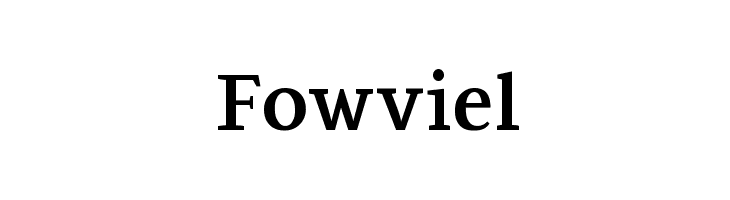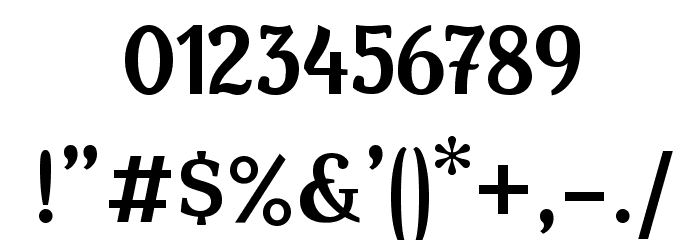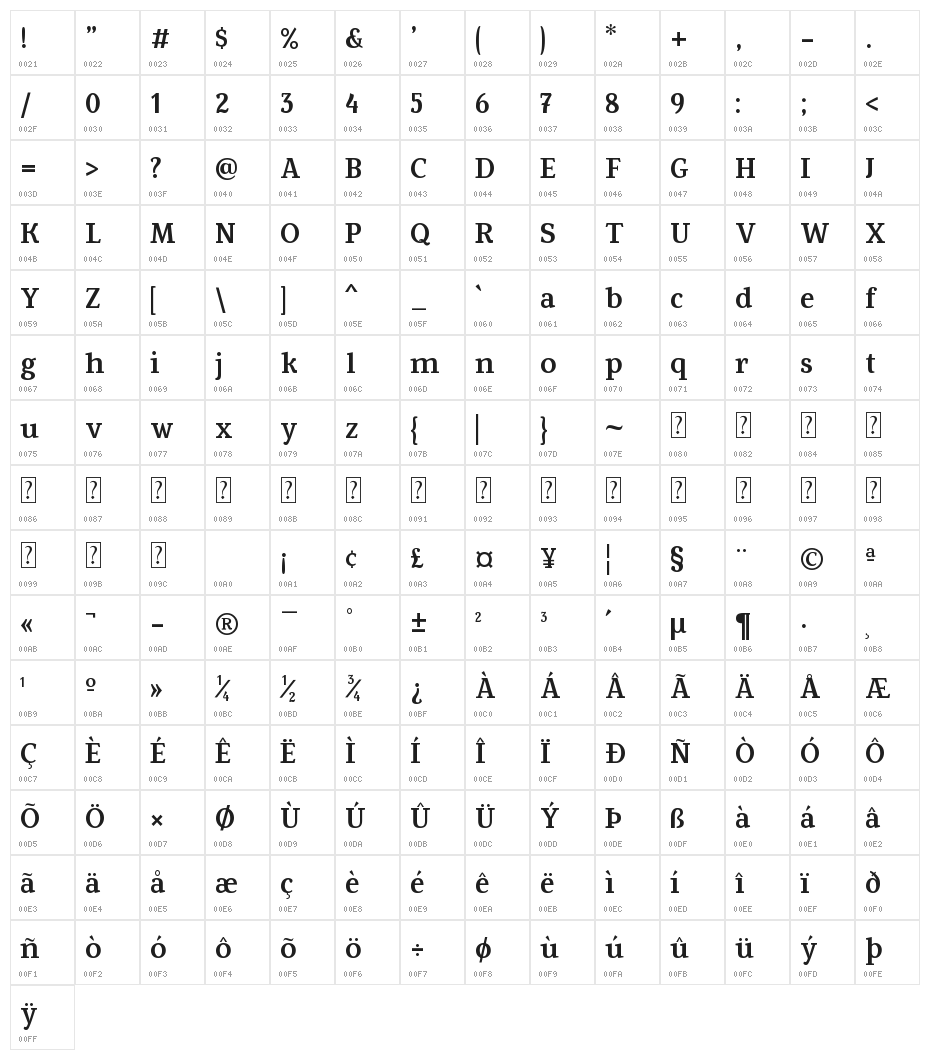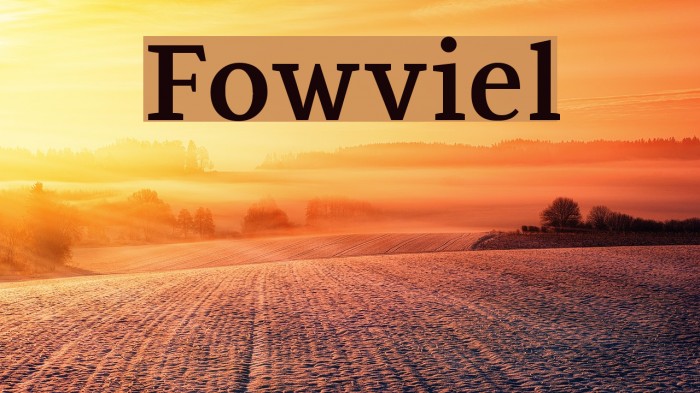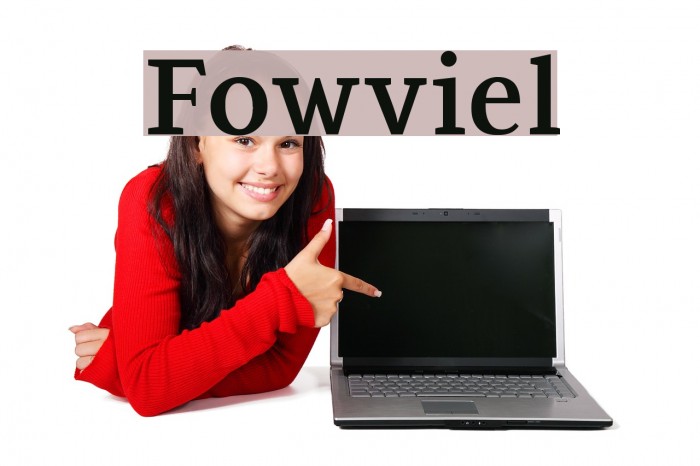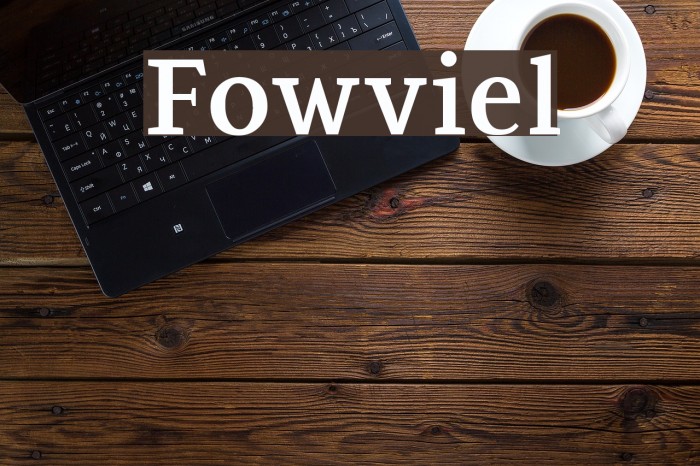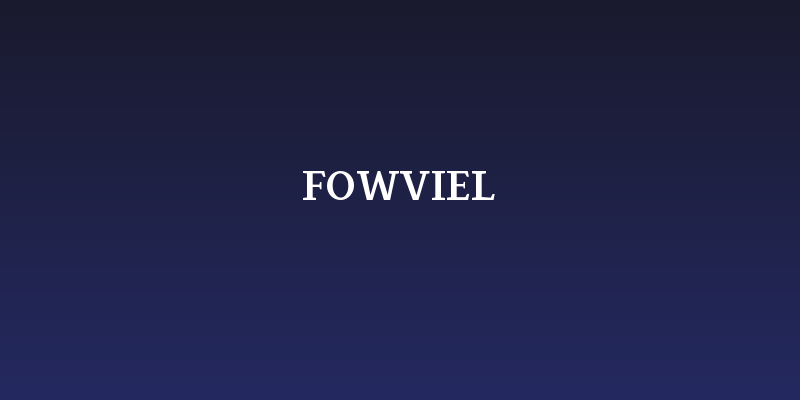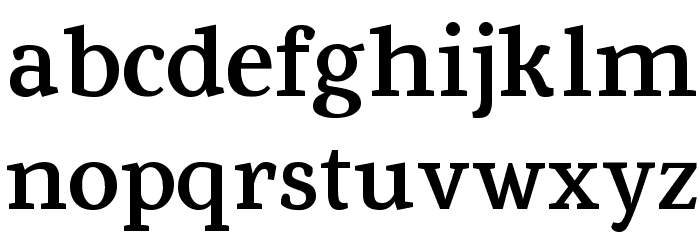
Fowviel Font
Fowviel Description
This font features a classic serif style with strong, defined strokes and a traditional aesthetic. The uppercase letters are bold and commanding, while the lowercase letters maintain a consistent and readable form. The numerals are clear and well-proportioned, making them suitable for a variety of uses. The special characters are designed with the same attention to detail, ensuring a cohesive look across all glyphs. The overall design is balanced, with a moderate contrast between thick and thin strokes, giving it a timeless and versatile appeal.
| Proposed Projects | Ideal for editorial design, book covers, formal invitations, and branding projects that require a traditional and authoritative look. |